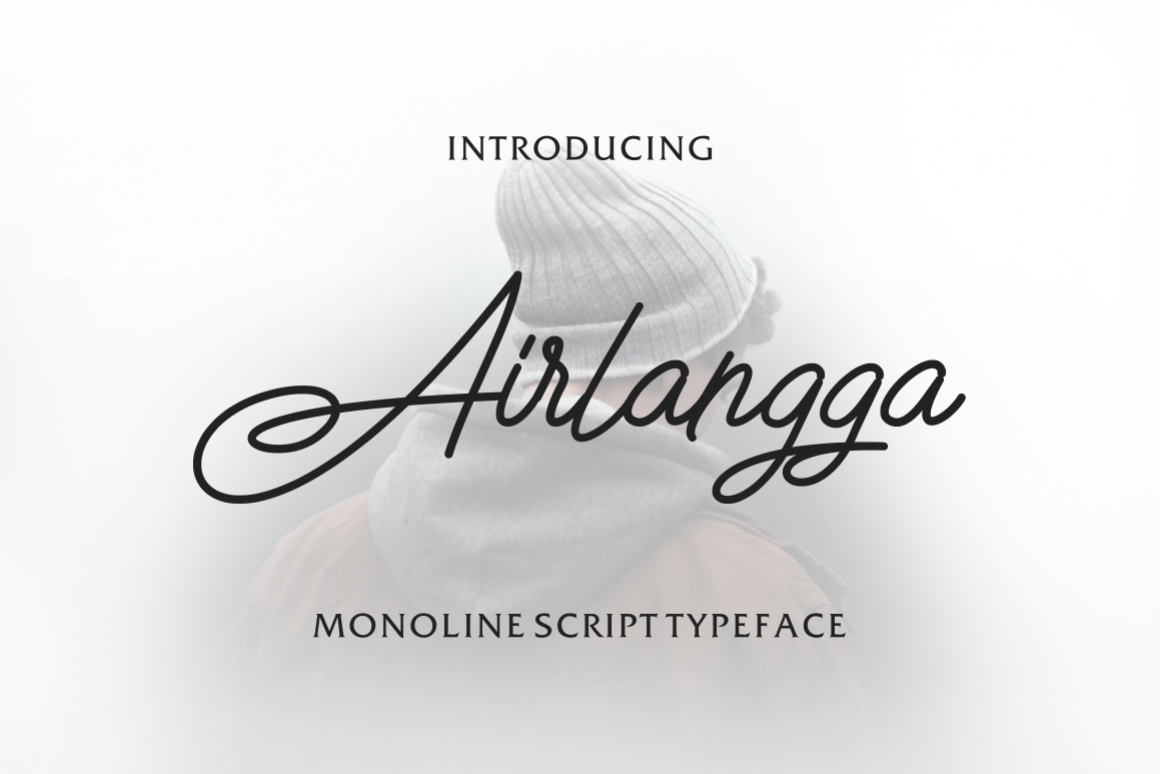
Airlangga Script
Airlangga-Regular
Airlangga a Monoline Script font with a casual look and a signature style.
Airlangga is perfect for your upcoming projects. This script is casual and clean which makes it perfect for many designing needs such as logos, blog headers, wedding invitations, branding, t-shirts, posters & many more type of projects!
Airlangga is nice too if use it in any design style.